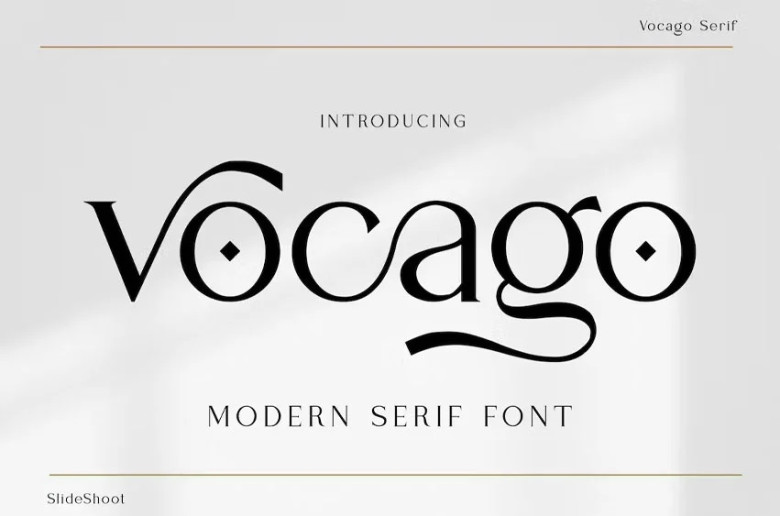
Vocago Font
Vocago Serif Font is an elegant yet slender serif font with gorgeous design features and charming features, ideal for use in invitation cards, company logos, movie titles, film names, book labels and company names among numerous other projects.
This soft serif font radiates elegance and sophistication thanks to its elegant ligatures that will complement any project perfectly.
Vocago Serif Font